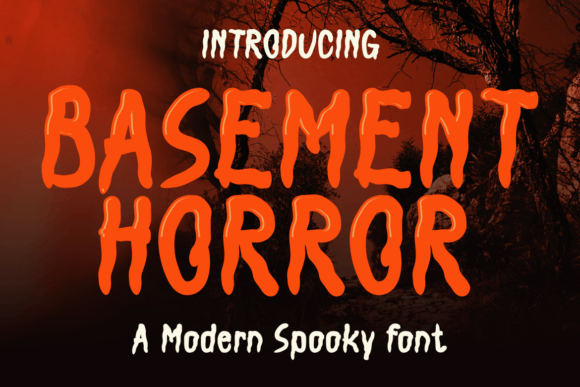
Unleash the Terror with Basement Horror Font: The Ultimate Display Font for Halloween
As the spookiest time of the year approaches, designers and artists are on the lookout for the perfect font to capture the eerie essence of Halloween. Look no further than the Basement Horror Font, a display font specifically crafted to evoke a sense of mystery and terror. In this article, we’ll dive into the world of Basement Horror Font and explore its uses, features, and benefits.
What is Basement Horror Font?
Basement Horror Font is a display font designed to create a spooky, mysterious atmosphere, perfect for depicting the spirit of Halloween celebrations. This font is ideal for use in various Halloween-related media, such as:
- Party invitations
- Posters
- Merchandise designs
- Greeting cards
- Warning signs
- Website designs with Halloween themes
Key Features of Basement Horror Font
The Basement Horror Font boasts several key features that make it the perfect choice for your Halloween design needs:
- Unique and distressed design: The font’s distressed texture and unique letterforms evoke a sense of eeriness and foreboding.
- High-quality and readable: Despite its distressed look, the font remains highly readable, making it perfect for use in a variety of designs.
- Versatile: Basement Horror Font can be used in both digital and print designs, making it a versatile addition to your design arsenal.
Benefits of Using Basement Horror Font
Using Basement Horror Font in your Halloween designs offers several benefits:
- Instantly evoke a spooky atmosphere: The font’s eerie design instantly creates a spooky atmosphere, perfect for Halloween-themed designs.
- Stand out from the crowd: The font’s unique design ensures that your designs stand out from the crowd and grab attention.
- Professional results: The font’s high-quality design ensures professional-looking results, even for those with limited design experience.
Basement Horror Font is the perfect display font for creating spooky and mysterious designs, perfect for Halloween celebrations. With its unique and distressed design, high-quality and readability, and versatility, this font is a must-have for designers and artists looking to create eye-catching and terrifying designs.
- What is Basement Horror Font?
- Basement Horror Font is a display font specifically designed to create a spooky, mysterious atmosphere and depict the spirit of Halloween celebrations.
- What can I use Basement Horror Font for?
- You can use Basement Horror Font for various Halloween-related media, such as party invitations, posters, merchandise designs, greeting cards, warning signs, or within website designs with Halloween themes.